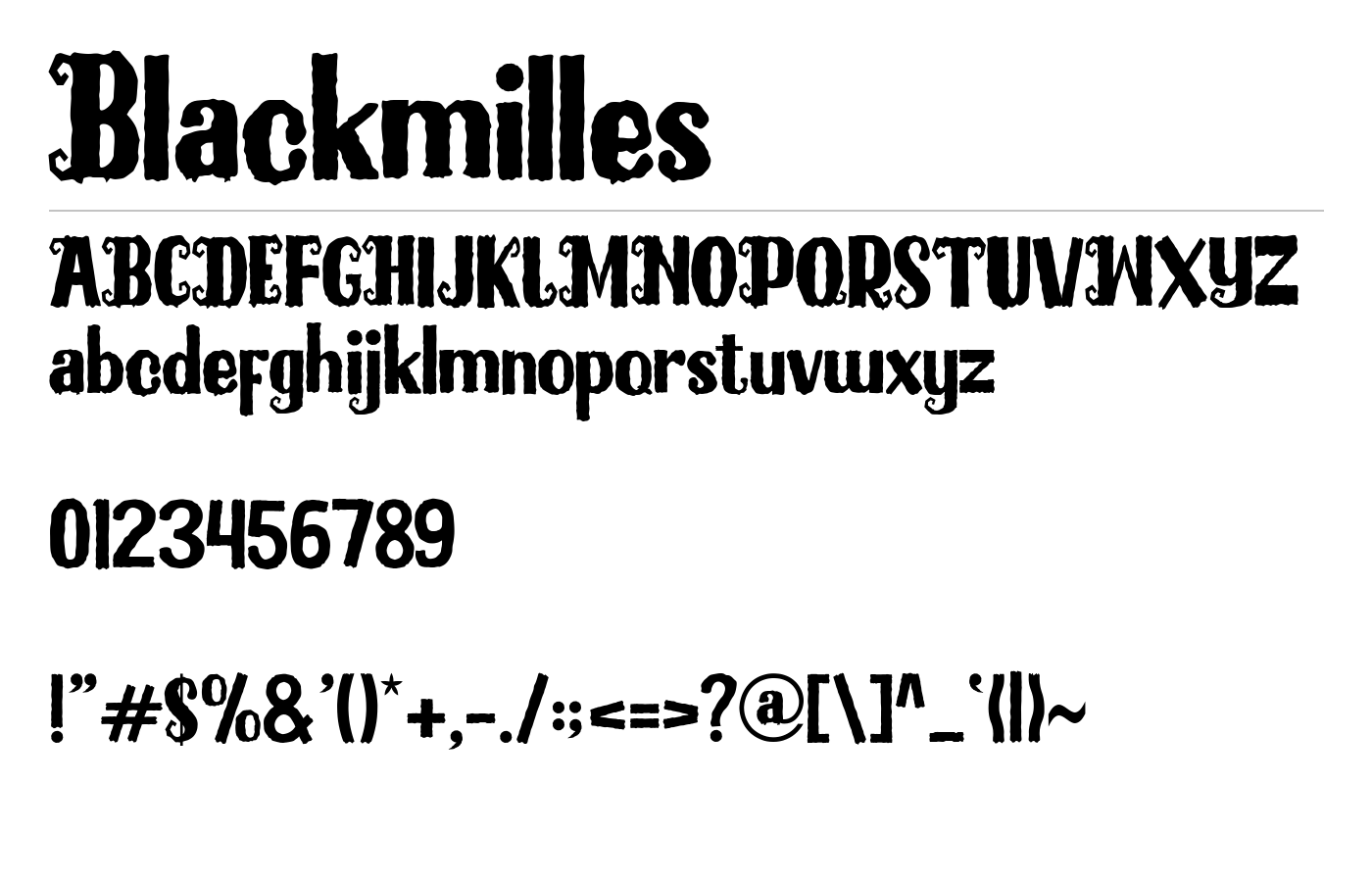
Blackmilles is a bold, condensed serif font with a vintage, slightly distressed look, featuring thick, irregular strokes and unique ornamental details on some characters that give it a handcrafted feel. Its strong presence and old-fashioned charm make it ideal for creating eye-catching headlines, logos, posters, and branding that seek a rugged, nostalgic, or western-inspired style. This font works well where you want to add personality and a distinct, memorable touch to your design.
Blackmilles Font
About Blackmilles Font
| Font family | Blackmilles Font |
| Designer | Kapri Prianto © (NeutroneLabs) |